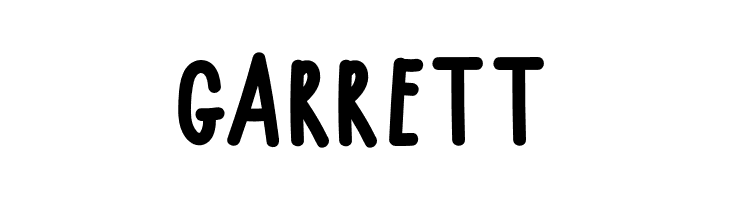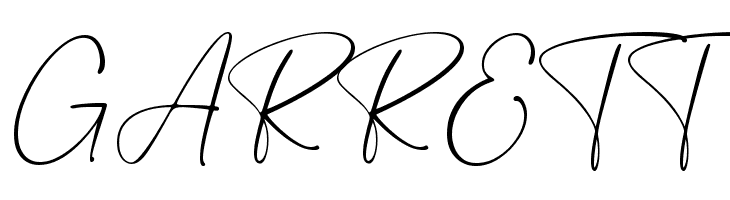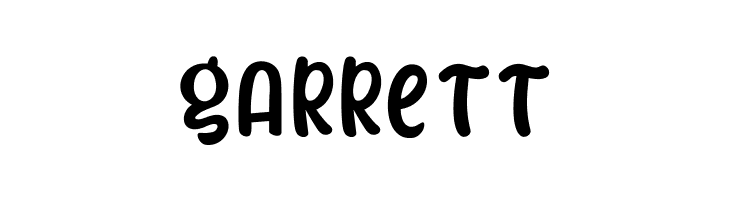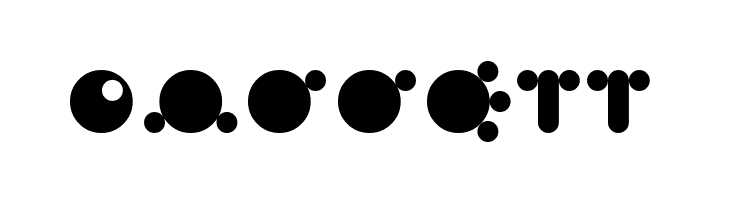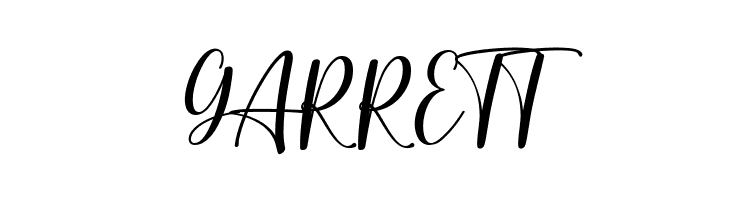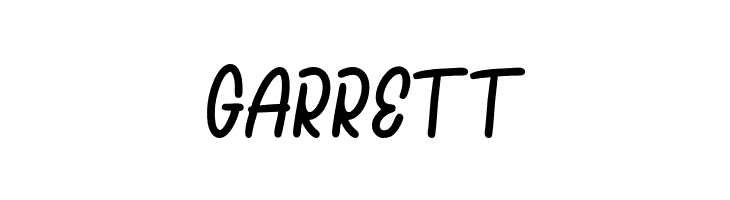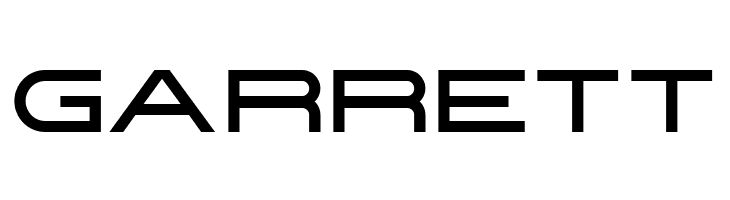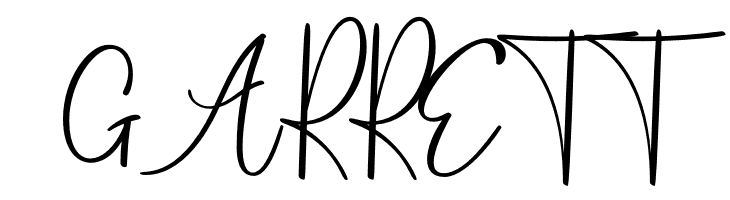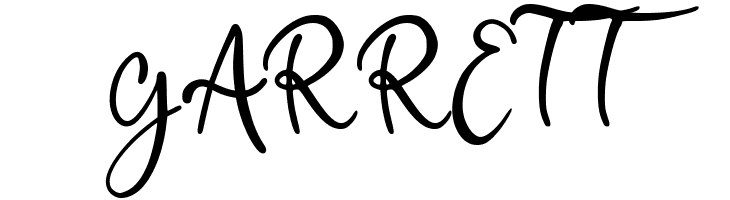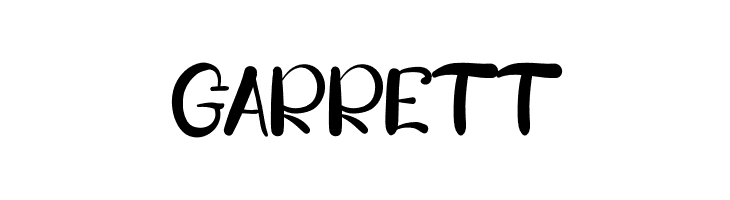
A playful, bold handwritten font with rounded edges and varying stroke widths.
A graceful script font with flowing, interconnected letters.
A modern, elegant script font with flowing, cursive characters.
A playful, rounded font with a whimsical and friendly style.
A modern, elongated font with sleek, thin strokes and geometric shapes.
A graceful and elegant script font with flowing, cursive strokes.
A playful, handwritten font with a whimsical and charming style.
A dynamic and flowing italic script font with elegant connections.
A playful, tilted font with bold, condensed characters and a whimsical style.
A playful, tilted font with a hand-drawn, whimsical style.
A cursive, elegant script font with flowing loops and swashes.
A playful and elegant script font with flowing, cursive letterforms.
A bold, playful handwritten font with a smooth, flowing style.
A playful, hand-drawn font with bold, rounded characters and a whimsical style.
A playful, handwritten font with rounded edges and a casual, friendly style.
A playful, rounded font with a whimsical, hand-drawn style.
A playful and elegant handwritten font with fluid, cursive letterforms.
A whimsical and decorative font with gothic and cartoon influences, featuring bold strokes and intricate details.
A playful, whimsical script font with flowing, interconnected letters.
A lively, flowing script font with elegant loops and a natural handwriting style.
A fluid and elegant script font with a modern calligraphic style.
A modern, geometric font with a futuristic and sleek design.
A bold, expressive script font with fluid, dynamic strokes.
A playful, handwritten font with rounded edges and dynamic strokes.
A playful, bold font with circular shapes and dot accents.
An elegant, flowing script font with smooth, cursive letterforms.
A playful and elegant script font with flowing cursive letters.
A graceful script font with flowing, cursive strokes and elegant loops.
A charming and elegant script font with flowing, cursive letters and bold numerals.
A playful, handwritten font with smooth, rounded edges and a casual flow.
A playful, rounded font with a hand-drawn, whimsical style.
A playful and elegant script font with smooth, flowing curves.
A charming and elegant script font with playful, whimsical curves.
A playful and elegant script font with flowing, cursive letters.
A flowing, cursive script font with elegant, interconnected letters.